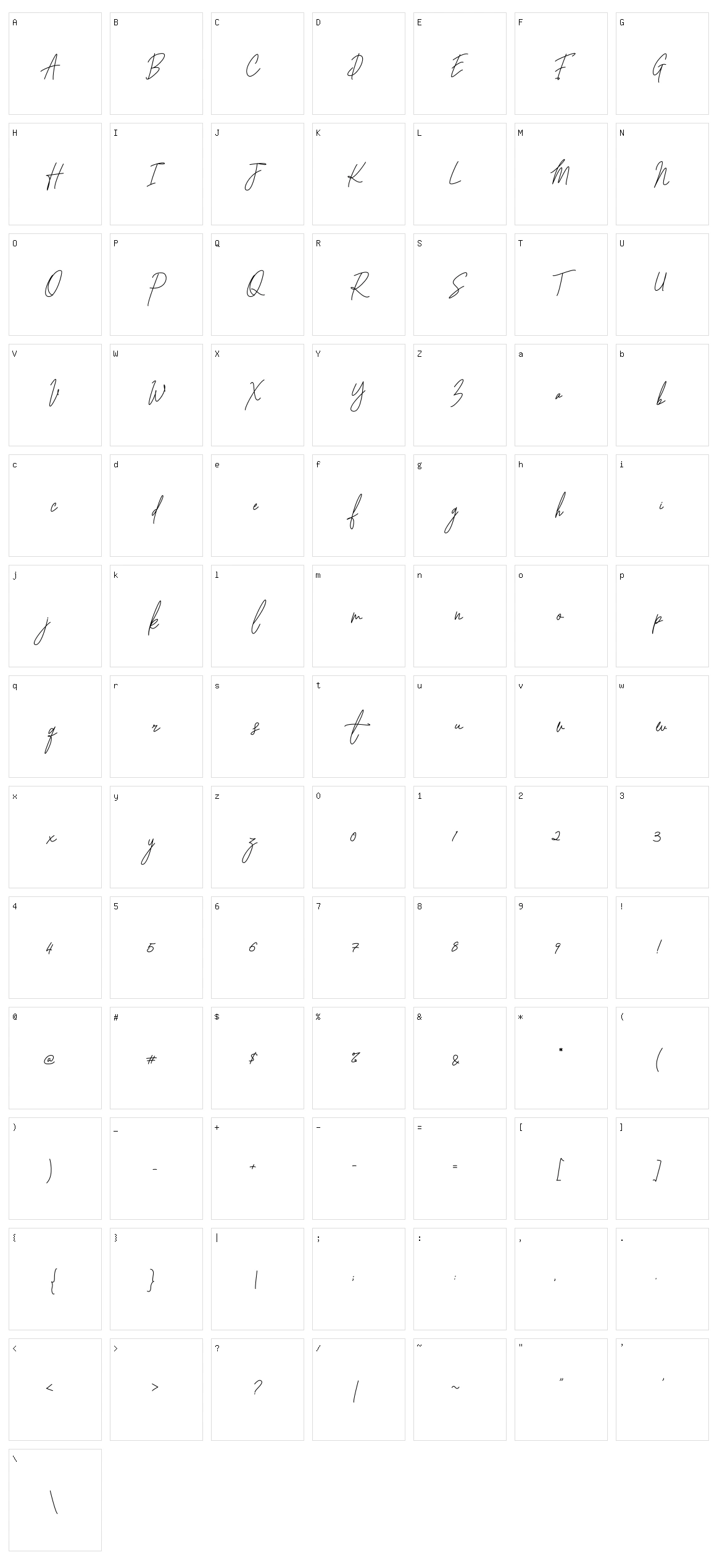
The free font Stay Home is carefully designed by !bey Design, showcasing a thoughtful balance of creativity and usability and falls under the Script font style. When you download the ZIP file, it contains only 568.82 KB of font files, making it lightweight and quick to download. Please review the license details below to understand permitted usage and distribution rights. If license information is not available, we recommend using this font for personal projects only or contacting the author directly for commercial usage permissions.